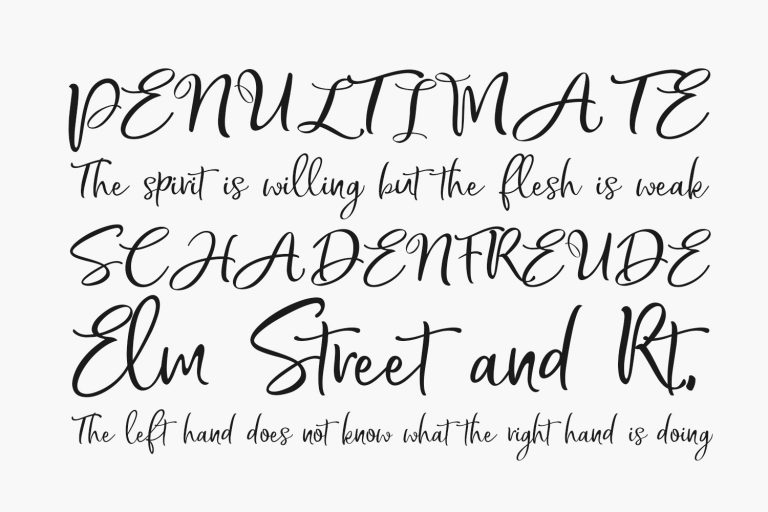
Bread Store Caps Font Free Download . Thousands of designers (famous or not) use the image font detection system to find a font or similar free fonts from an image. It perfectly represents elegance with its clean lines and. Bread store font family designed by burhan afif has a total of 1 different styles. Bread store font is a fun script font duo designed with an iconic curly and comical style. You can use the bread store to create interesting designs, covers, shop and store name and logos. Free download of bread store font. Also, the bread store font is. Click now to create a custom image with your own words that you can download. You can download the bread store font to your computer or use it.
Bread store font family designed by burhan afif has a total of 1 different styles. It perfectly represents elegance with its clean lines and. Bread store font is a fun script font duo designed with an iconic curly and comical style. Free download of bread store font. Thousands of designers (famous or not) use the image font detection system to find a font or similar free fonts from an image. Click now to create a custom image with your own words that you can download. Also, the bread store font is. You can use the bread store to create interesting designs, covers, shop and store name and logos. You can download the bread store font to your computer or use it.
Bread Store Caps Font Free Download Bread store font family designed by burhan afif has a total of 1 different styles. It perfectly represents elegance with its clean lines and. Bread store font is a fun script font duo designed with an iconic curly and comical style. You can download the bread store font to your computer or use it. Bread store font family designed by burhan afif has a total of 1 different styles. Thousands of designers (famous or not) use the image font detection system to find a font or similar free fonts from an image. You can use the bread store to create interesting designs, covers, shop and store name and logos. Also, the bread store font is. Free download of bread store font. Click now to create a custom image with your own words that you can download.
Bread Store шрифт Bread Store Caps Font Free Download Also, the bread store font is. Bread store font family designed by burhan afif has a total of 1 different styles. Thousands of designers (famous or not) use the image font detection system to find a font or similar free fonts from an image. Click now to create a custom image with your own words that you can download. Free. Bread Store Caps Font Free Download.
Bread Store Font by HansCo · Creative Fabrica Bread Store Caps Font Free Download You can use the bread store to create interesting designs, covers, shop and store name and logos. Free download of bread store font. Bread store font family designed by burhan afif has a total of 1 different styles. Click now to create a custom image with your own words that you can download. You can download the bread store font. Bread Store Caps Font Free Download.
Premium Vector Set of handwritten logos, badges for a bakery or Bread Store Caps Font Free Download It perfectly represents elegance with its clean lines and. Thousands of designers (famous or not) use the image font detection system to find a font or similar free fonts from an image. Click now to create a custom image with your own words that you can download. Bread store font is a fun script font duo designed with an iconic. Bread Store Caps Font Free Download.
Set of bakery, bread shop emblems. Design Royalty Free Stock Vector Bread Store Caps Font Free Download Also, the bread store font is. Click now to create a custom image with your own words that you can download. You can download the bread store font to your computer or use it. Bread store font is a fun script font duo designed with an iconic curly and comical style. Bread store font family designed by burhan afif has. Bread Store Caps Font Free Download.
Bread Store Font Bread Store Caps Font Free Download Free download of bread store font. Bread store font family designed by burhan afif has a total of 1 different styles. You can download the bread store font to your computer or use it. You can use the bread store to create interesting designs, covers, shop and store name and logos. Thousands of designers (famous or not) use the image. Bread Store Caps Font Free Download.